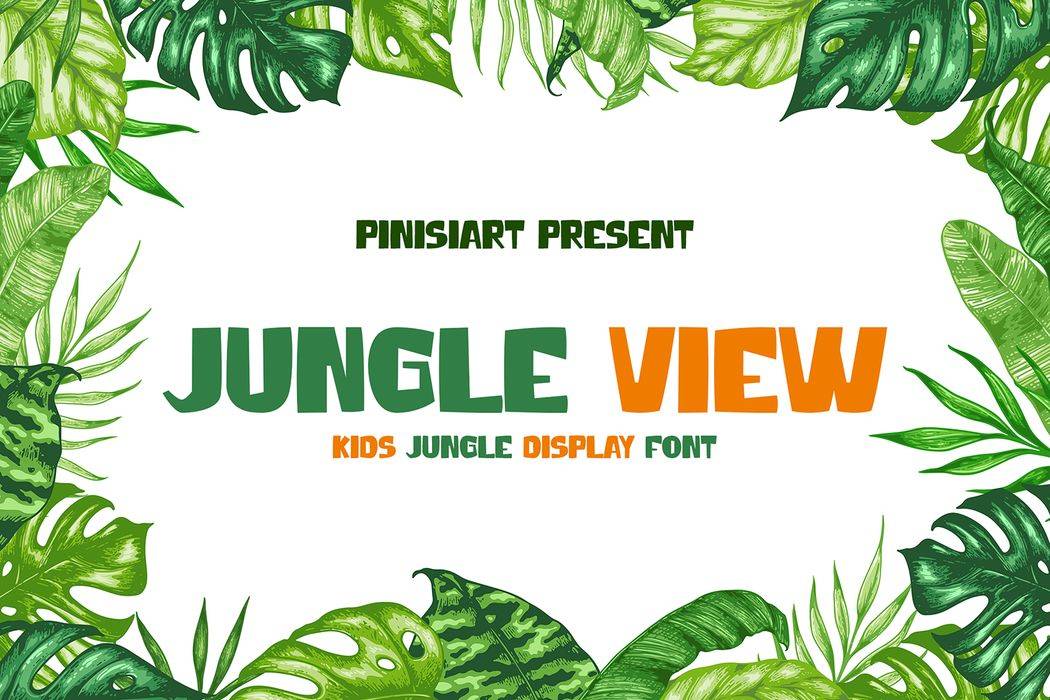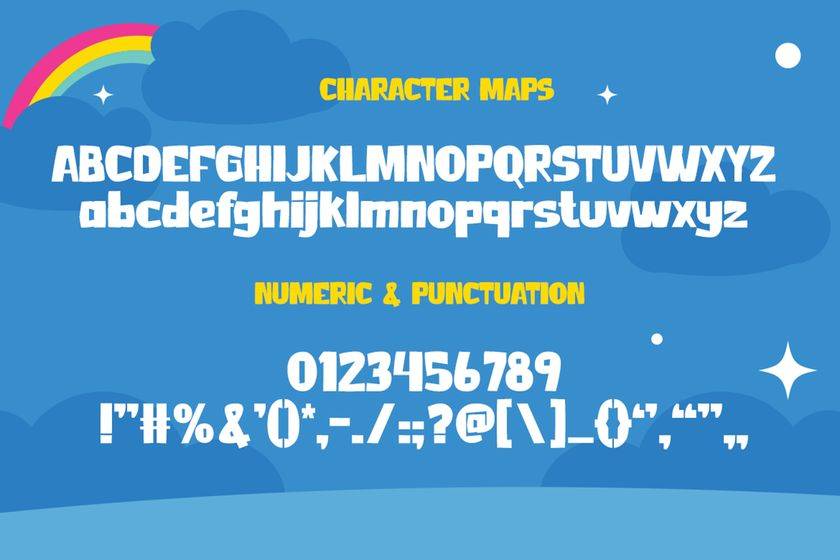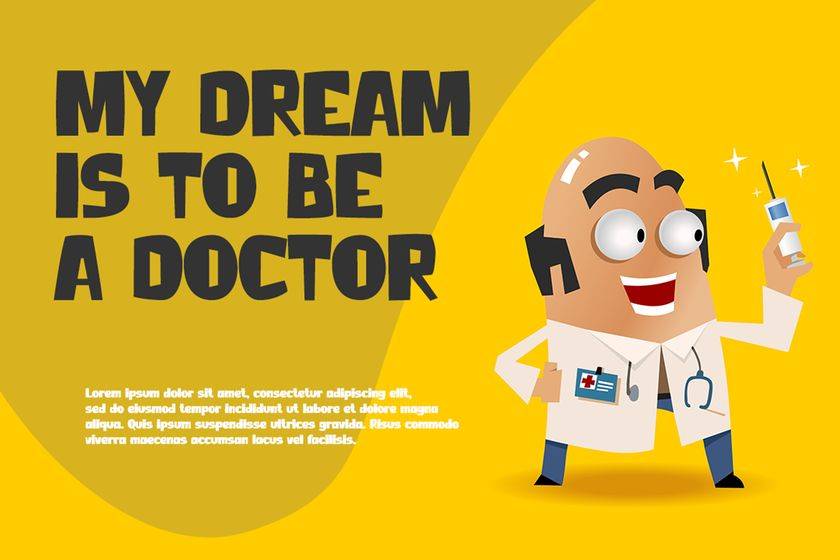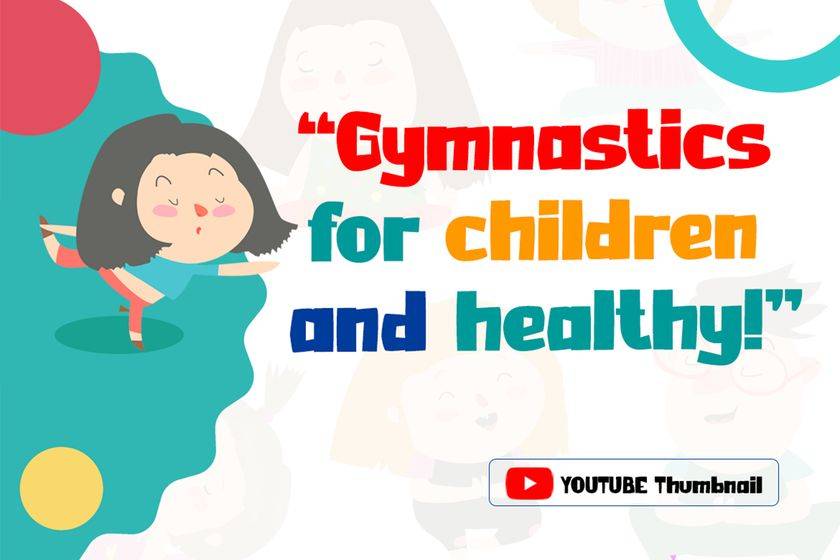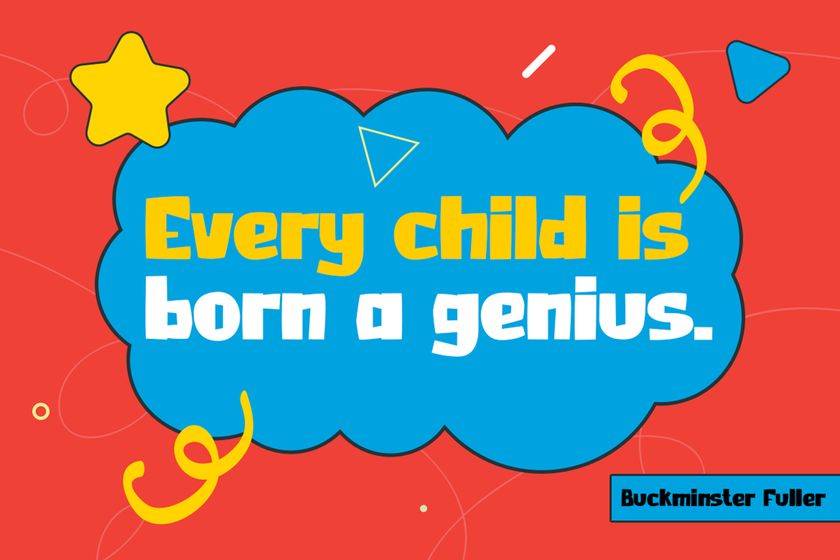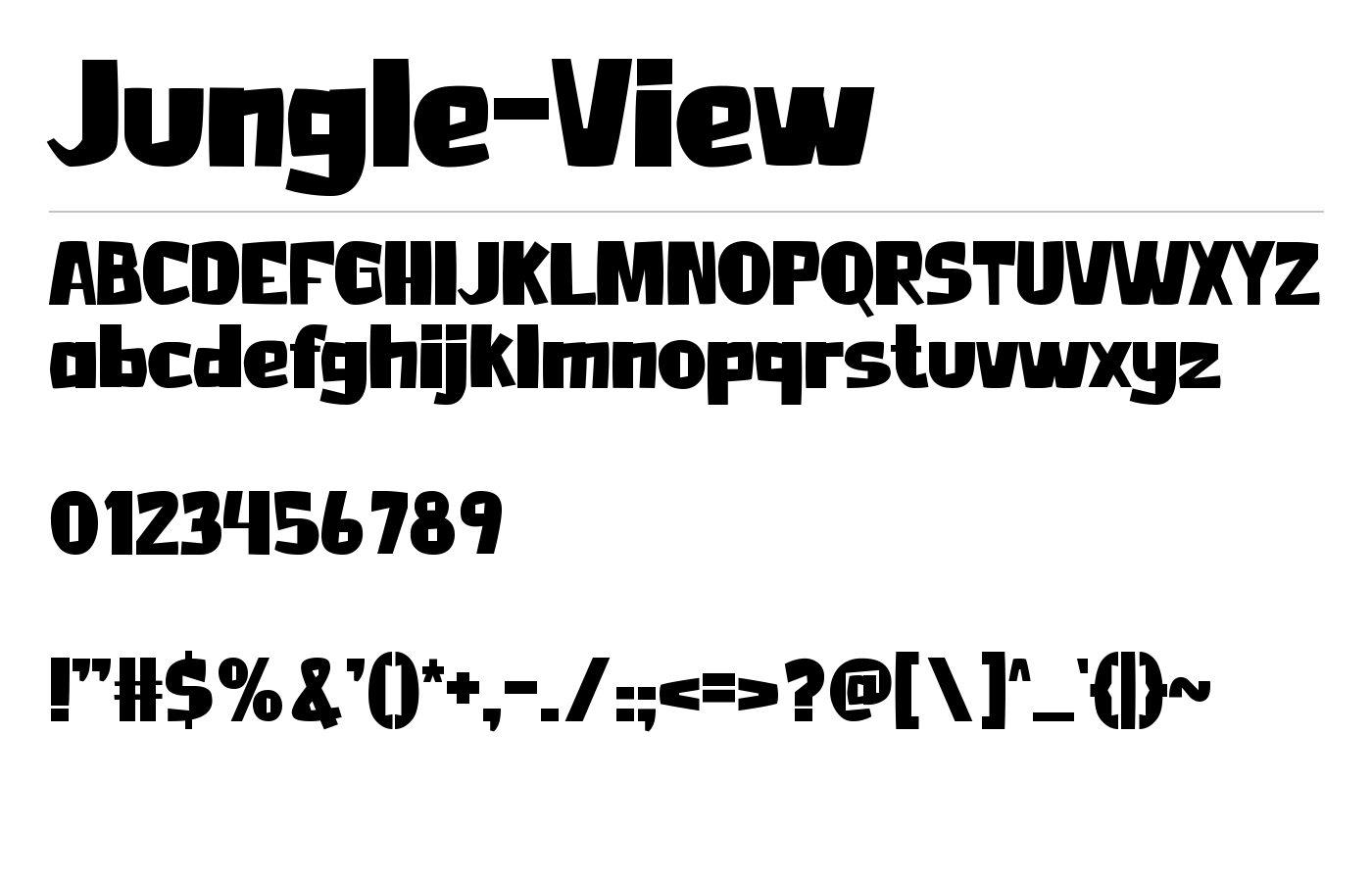
Jungle View is a bold, playful sans serif font with a slightly condensed width and a quirky, uneven character design that adds personality and charm. Its thick strokes and quirky letterforms make it perfect for fun, informal branding, posters, and headlines where an adventurous or youthful vibe is desired. This font works well for projects looking to grab attention with a friendly and energetic look.
Jungle View Font